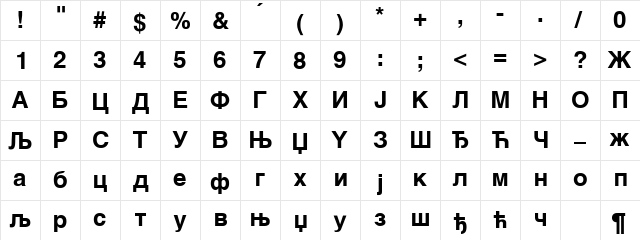
Arial Cirilica Bold
Design Context for Arial Cirilica Typeface
Arial Cirilica takes a measured approach to typography — its balanced proportions and neutral character make it a reliable workhorse for both digital and print work. The heavy weight commands attention and anchors typographic hierarchies.